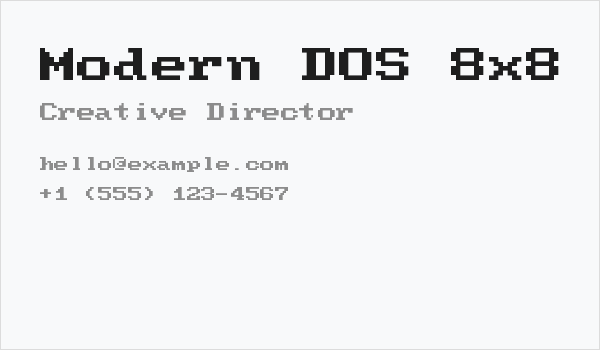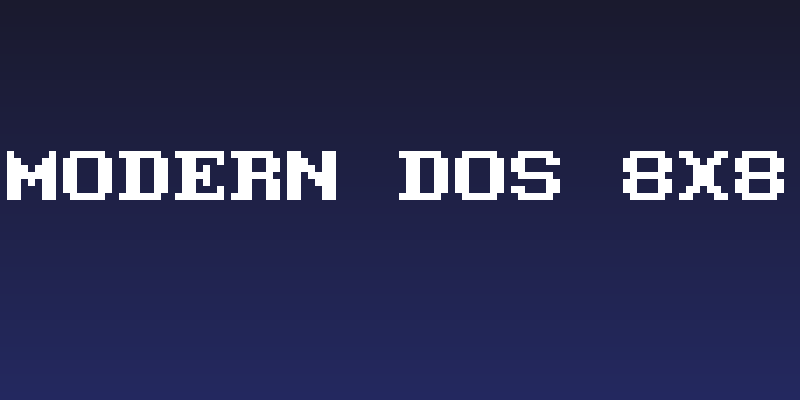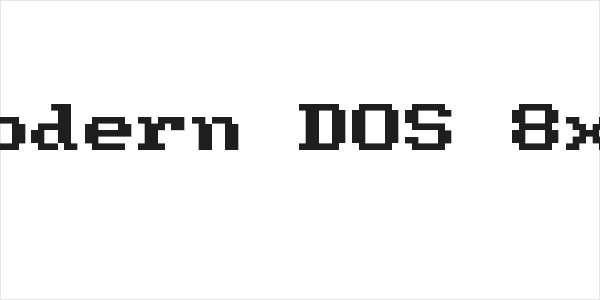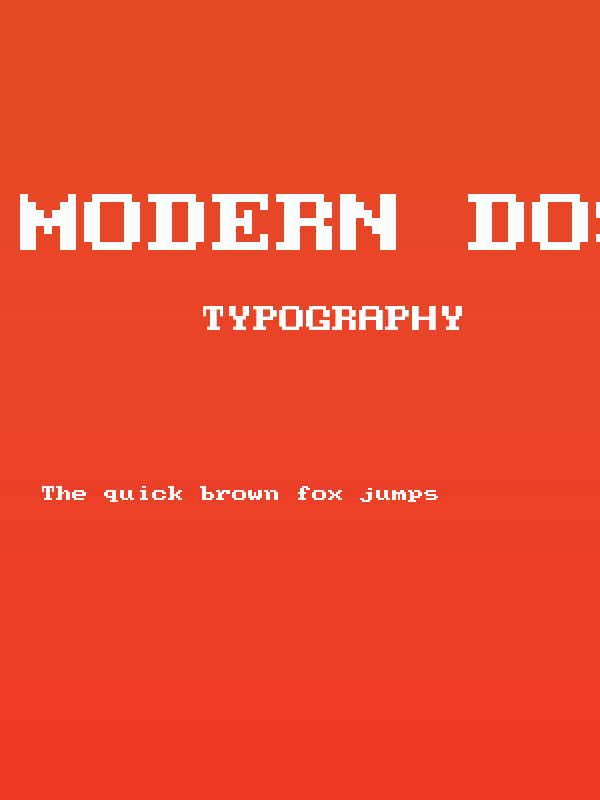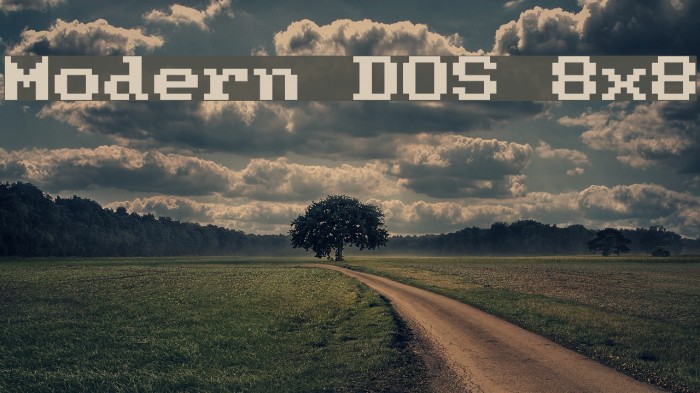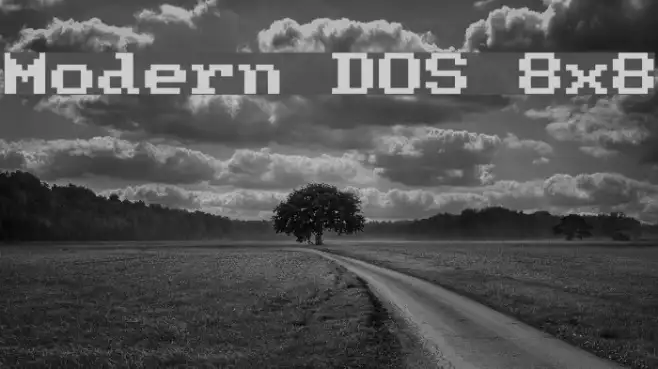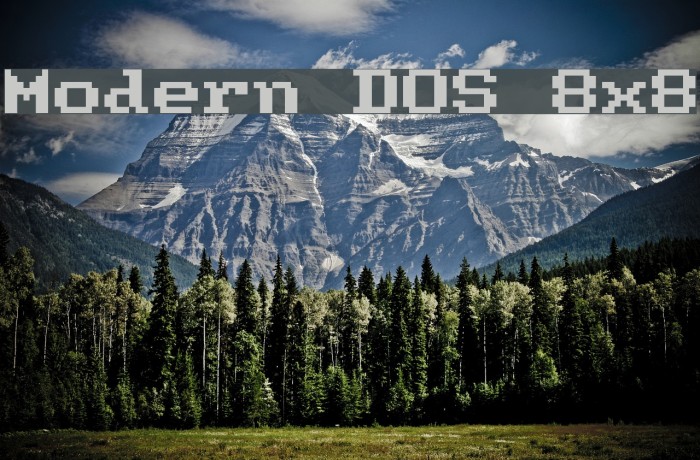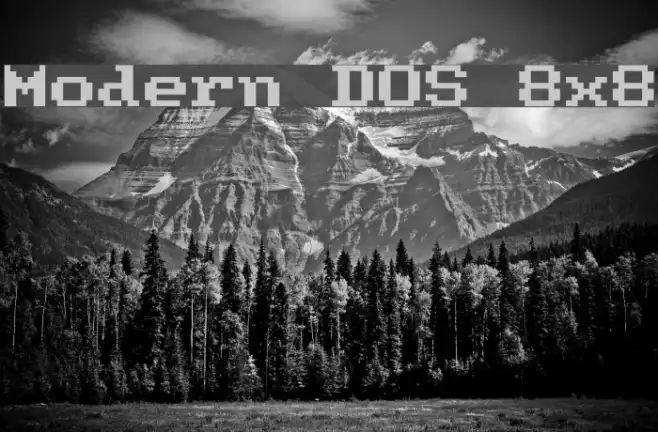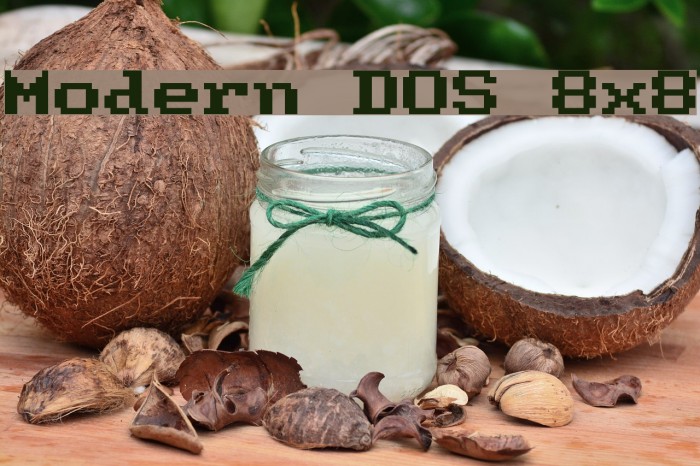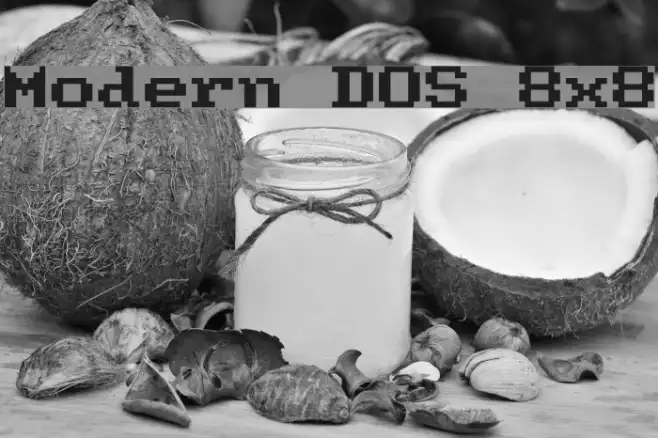
Modern DOS 8x8 Font
Modern DOS 8x8 Description
This font features a pixelated, monospaced design reminiscent of classic DOS and early computer interfaces. Each character is constructed with a grid-like precision, giving it a distinctly retro and digital appearance. The uniformity in character width ensures a consistent and orderly look, making it ideal for coding environments or any project that seeks to evoke a sense of nostalgia for early computing. The characters are bold and clear, ensuring readability even at smaller sizes. The font includes a full set of uppercase and lowercase letters, numerals, and a variety of special characters, all maintaining the same pixelated style.
| Use Case | Headlines, Coding, Digital Art |
| Proposed Projects | Ideal for retro-themed designs, coding environments, video game graphics, and digital art projects. |